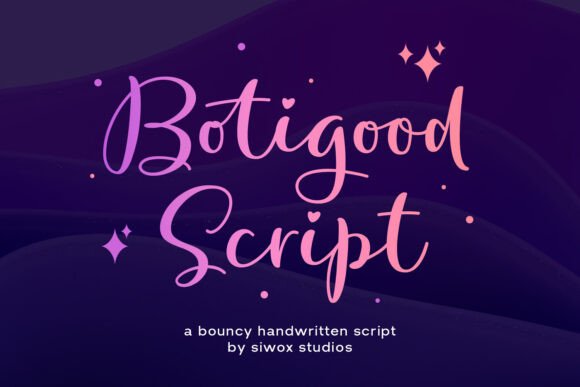
The Charm of Botigood Script Font: A Designer’s Delight
I’ll never forget the time I was working on a wedding invitation project, and my client asked for a font that was ” elegant, yet playful, and made them feel like they were reading a handwritten letter.” I scoured the internet, tried out countless fonts, but nothing seemed quite right. That was until I stumbled upon Botigood Script font. ✨
Botigood Script font feels equally charming and elegant. It looks stunning on wedding invitations, thank you cards, quotes, greeting cards, logos, business cards, and every other design that needs a handwritten touch. It’s also PUA encoded, which means you can access all of the glyphs and swashes with ease!
• ✨ Elegant and charming handwritten feel
• 💕 Perfect for wedding invitations, greeting cards, and more
• 🎨 Highly versatile and can be used for a variety of design projects
While Botigood Script font is an amazing addition to any design project, there are a few things to keep in mind: ⚠️
• 🤔 Some users may find the font a bit too ornate for certain projects
• ⚠️ May not be suitable for body text or long blocks of text
The Story Behind Botigood Script Font
Botigood Script font was designed with the intention of creating a beautiful, handwritten script font that would add a touch of elegance to any design project. The designer wanted to create a font that was both charming and sophisticated, with a unique feel that would set it apart from other script fonts.
A: PUA (Private Use Area) encoding is a way of encoding fonts that allows designers to access glyphs and swashes easily. This means that you can access all of the special characters and flourishes in Botigood Script font without having to use complicated keyboard shortcuts.
Q: Is Botigood Script font suitable for body text?
A: While Botigood Script font is a beautiful font, it’s not necessarily suitable for body text. The font is best used for headings, titles, and short blocks of text.